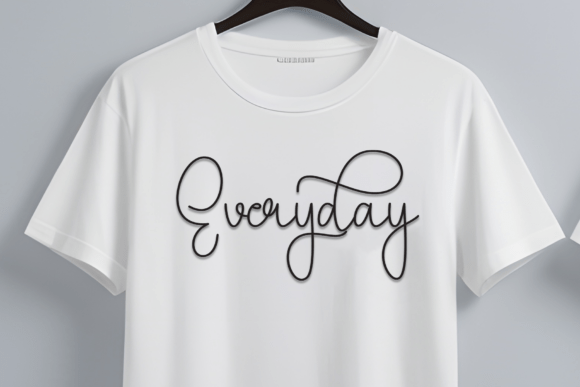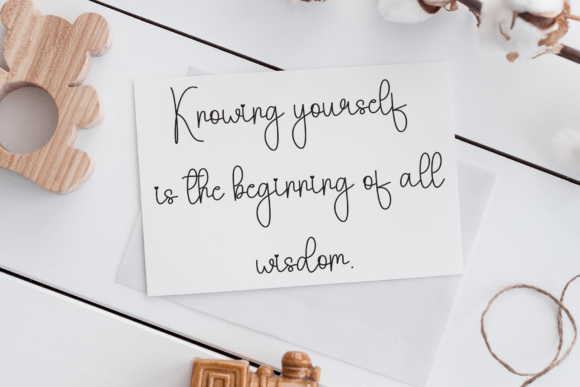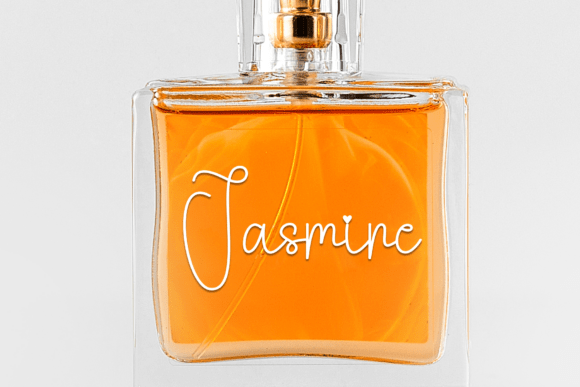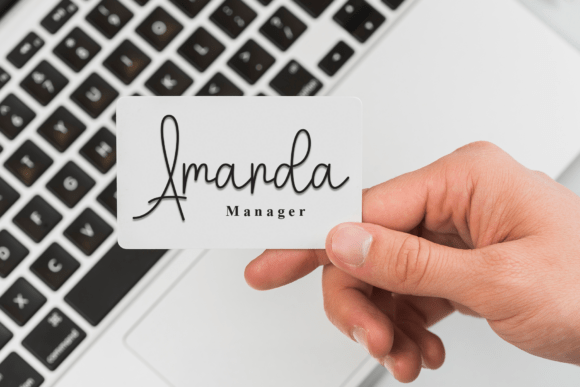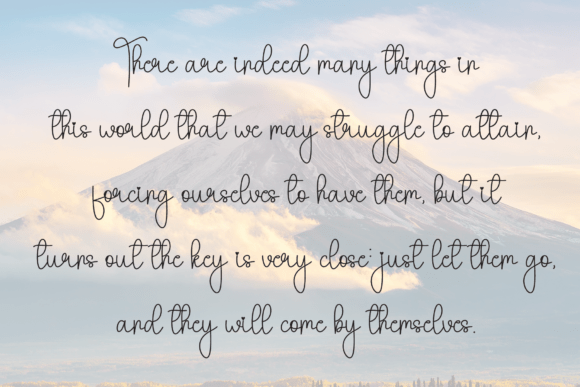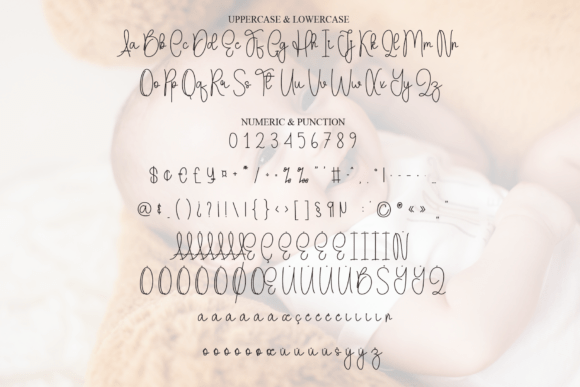
Babyish Font: Elevate Your Designs with a Touch of Modern Elegance and Playfulness
In the world of typography, fonts play a crucial role in conveying the tone and personality of a design. For designers and crafters looking to add a personal touch to their projects, the Babyish Font is an excellent choice. This stylish handwritten script font seamlessly blends modern elegance with a playful touch, making it perfect for a wide range of applications.
The Characteristics of Babyish Font
Babyish Font is characterized by its fluid strokes and charming curves, which bring a sense of warmth and sophistication to any design. Its modern elegance is balanced by a playful touch, making it an ideal choice for designers who want to create a unique and eye-catching visual identity. The font’s fluid strokes and curves also give it a personal feel, making it perfect for projects that require a human touch.
Uses of Babyish Font
Babyish Font is a versatile typeface that can be used in a variety of design projects, including:
- Logos: Create a memorable and stylish logo for your brand with Babyish Font. Its modern elegance and playful touch make it perfect for businesses that want to stand out from the crowd.
- Packaging: Add a personal touch to your product packaging with Babyish Font. Its charming curves and fluid strokes make it perfect for creating eye-catching labels and packaging designs.
- Invitations: Create beautiful and elegant invitations for special occasions, such as weddings, baby showers, and birthday parties, with Babyish Font.
Benefits of Using Babyish Font
Using Babyish Font in your design projects offers several benefits, including:
- Warmth and Sophistication: Babyish Font adds a touch of warmth and sophistication to any design, making it perfect for projects that require a personal and elegant feel.
- Creativity and Uniqueness: The font’s modern elegance and playful touch make it an excellent choice for designers who want to create unique and eye-catching designs.
- Versatility: Babyish Font is a versatile typeface that can be used in a wide range of design projects, from logos and packaging to invitations and more.
Tips for Using Babyish Font Effectively
To get the most out of Babyish Font, here are some tips to keep in mind:
- Pair it with Other Fonts: Experiment with pairing Babyish Font with other fonts to create a unique and visually appealing typography.
- Use it for Headlines and Titles: Babyish Font is perfect for headlines and titles, where its modern elegance and playful touch can shine.
- Experiment with Colors and Textures: Don’t be afraid to experiment with different colors and textures to add depth and interest to your designs.
In conclusion, Babyish Font is a stylish and versatile typeface that is perfect for designers and crafters looking to add a personal touch to their projects. Its modern elegance and playful touch make it an excellent choice for a wide range of design applications, from logos and packaging to invitations and more. With its fluid strokes and charming curves, Babyish Font is sure to bring warmth, sophistication, and creativity to every project.